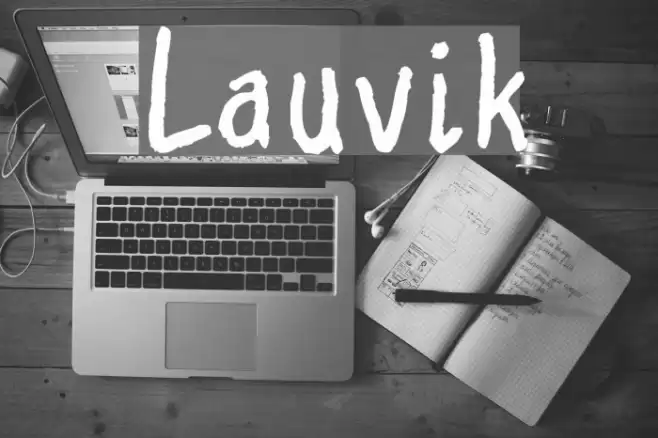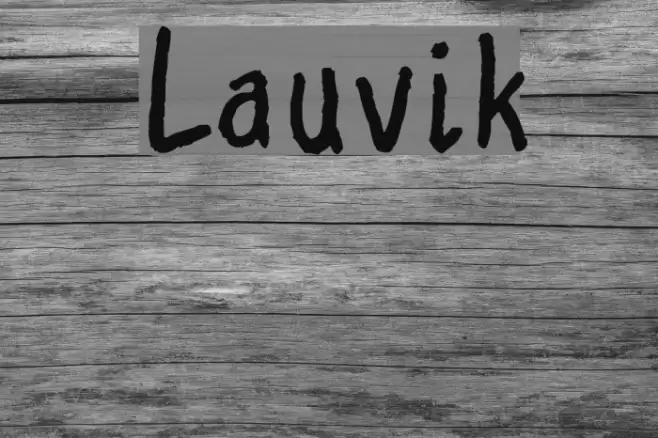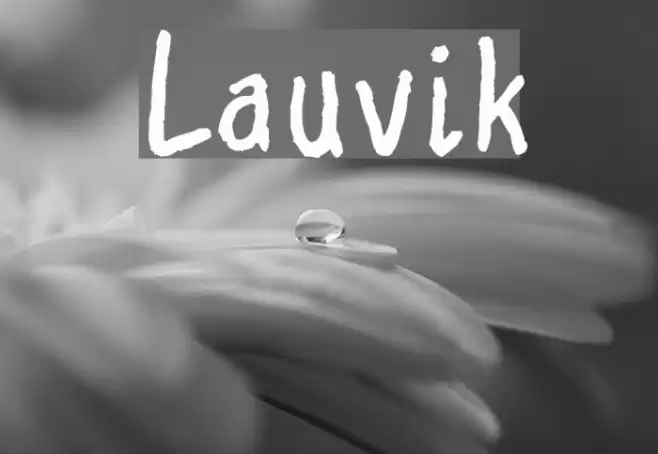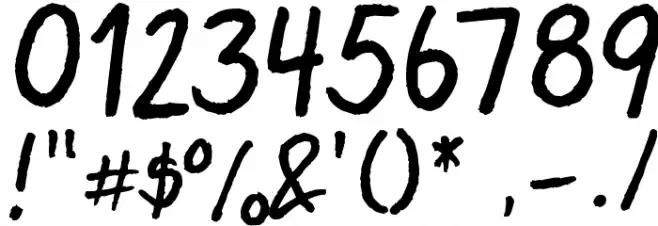
Lauvik Font
Lauvik Description
This font features a playful and informal handwritten style, characterized by its irregular strokes and slightly uneven baseline. The letters have a casual, friendly appearance, making them ideal for projects that require a personal touch. The uppercase and lowercase letters are well-balanced, with a consistent flow that maintains readability. The numerals and special characters complement the alphabet with a similar hand-drawn aesthetic. This font's organic feel is perfect for creative and artistic designs, adding a touch of whimsy and charm.
A playful, handwritten font with an informal and friendly style from Uncategorized fonts.
- Proposed Projects: Ideal for greeting cards, children's books, personal blogs, and creative branding projects.
- Overall Style: Casual, Artistic
- Use Case: Headlines, Informal text, Creative projects